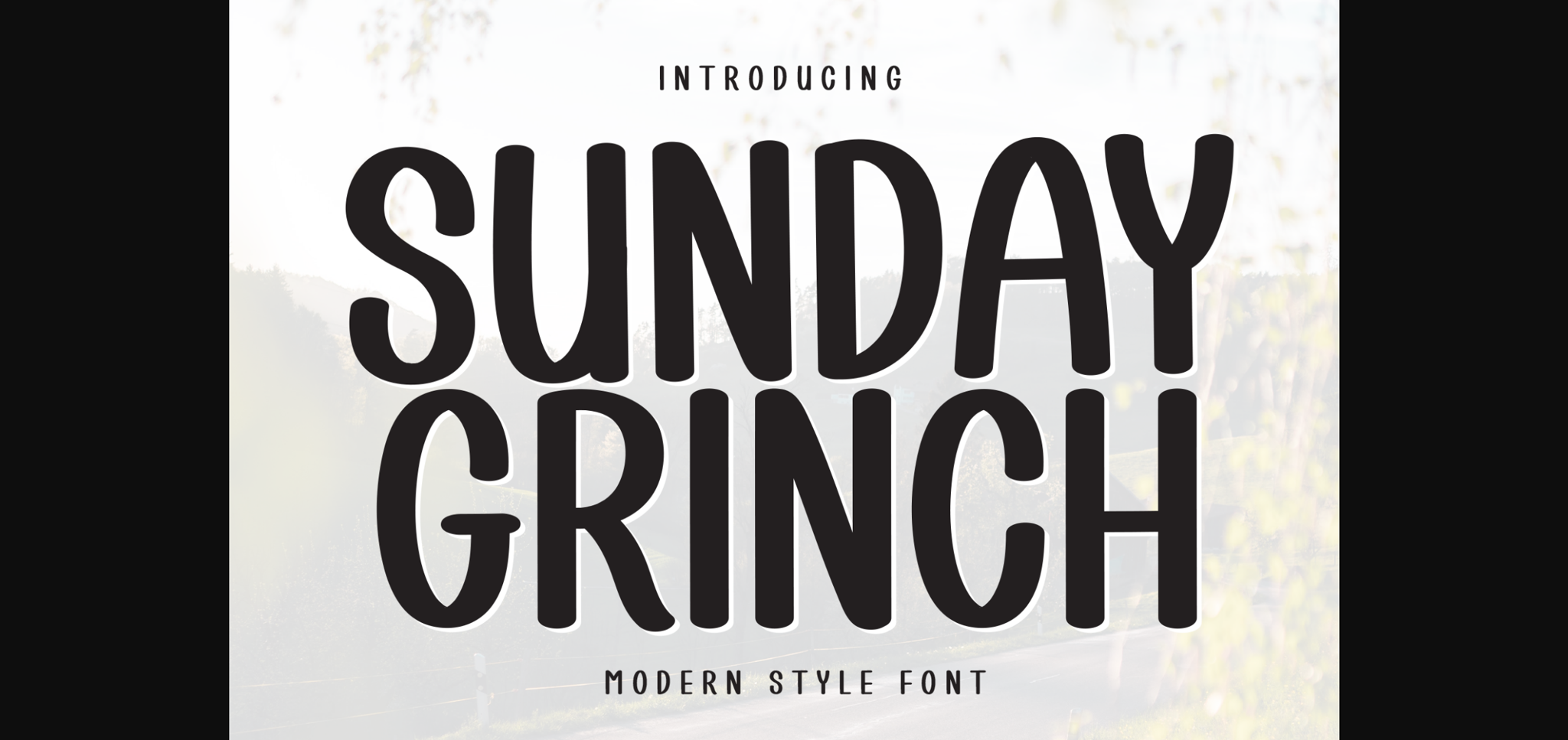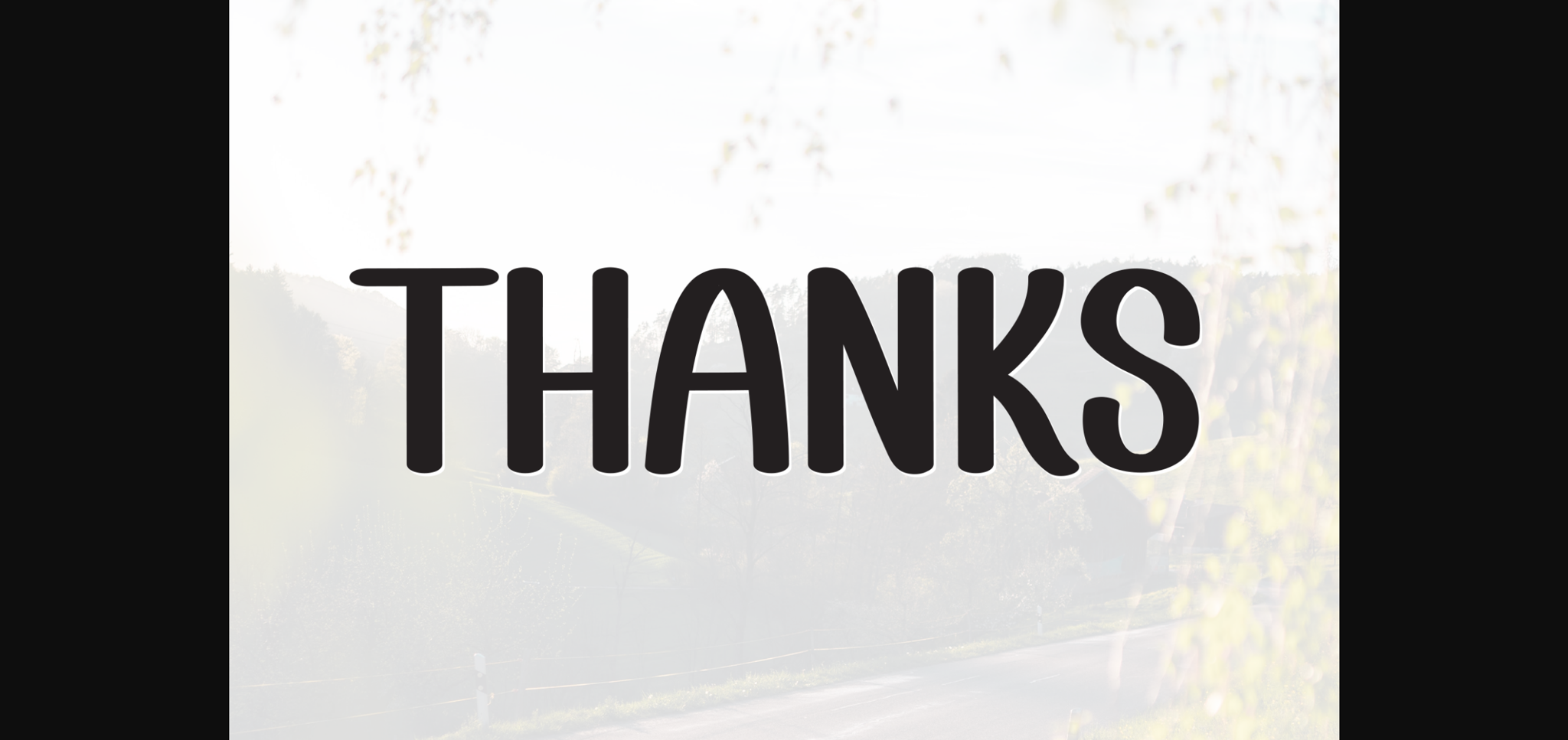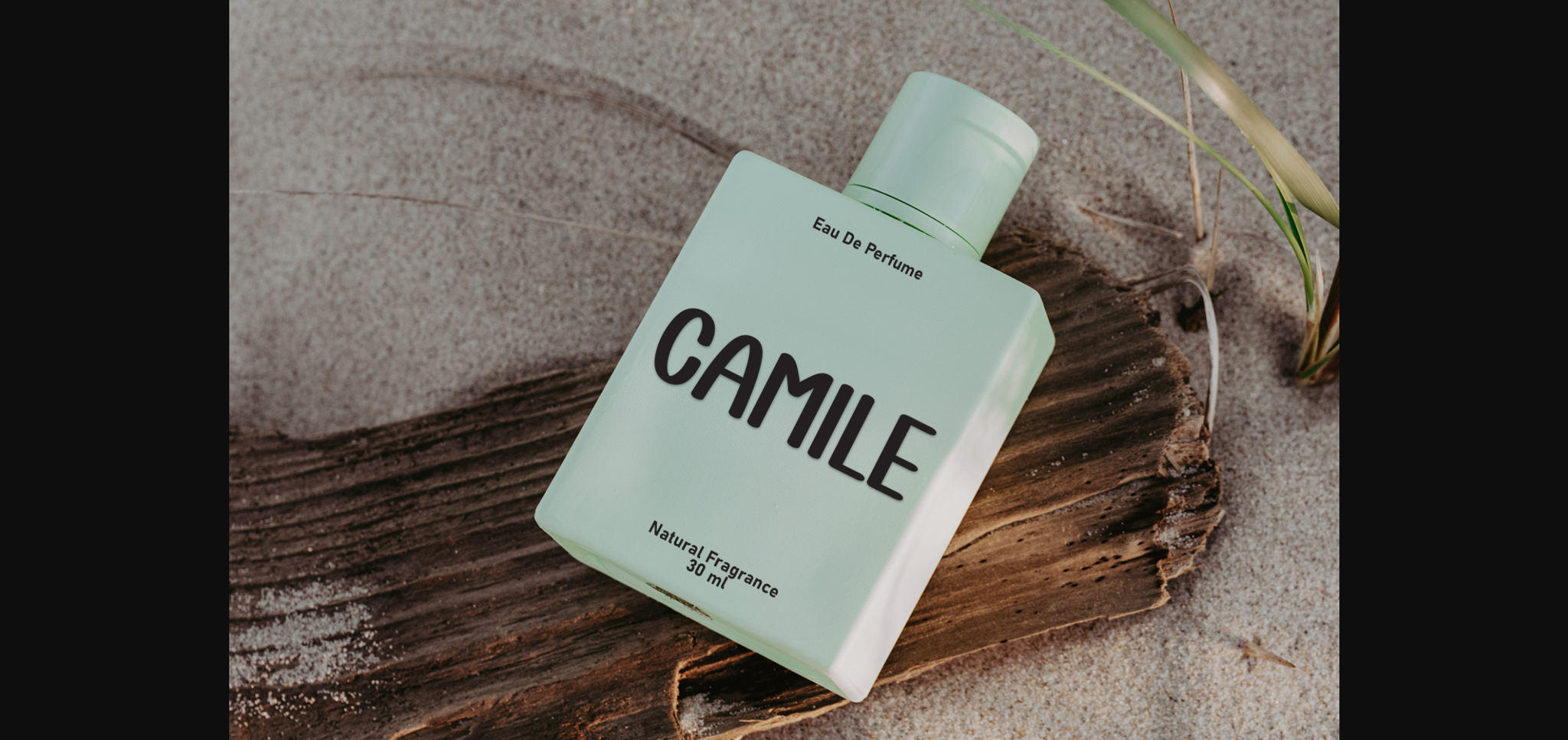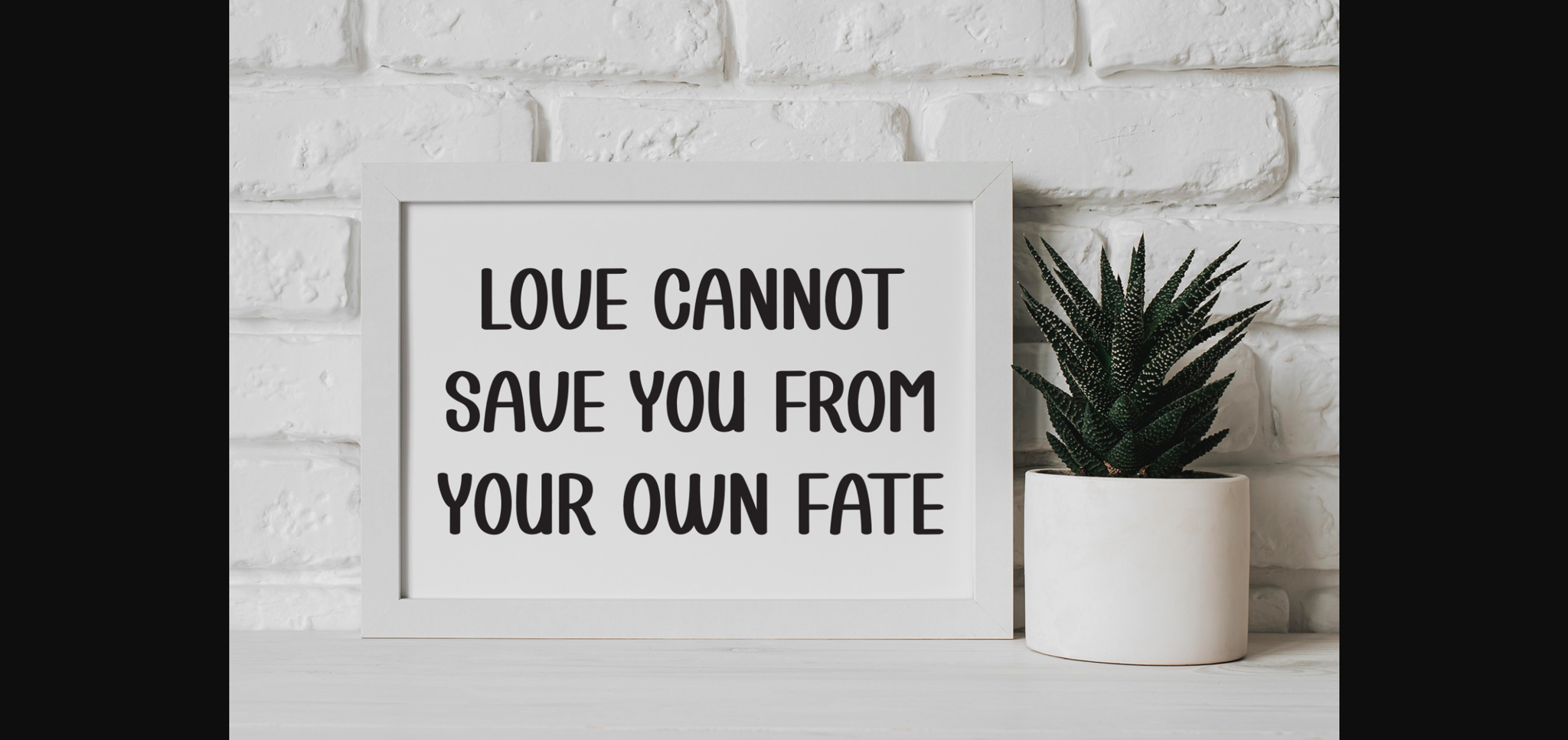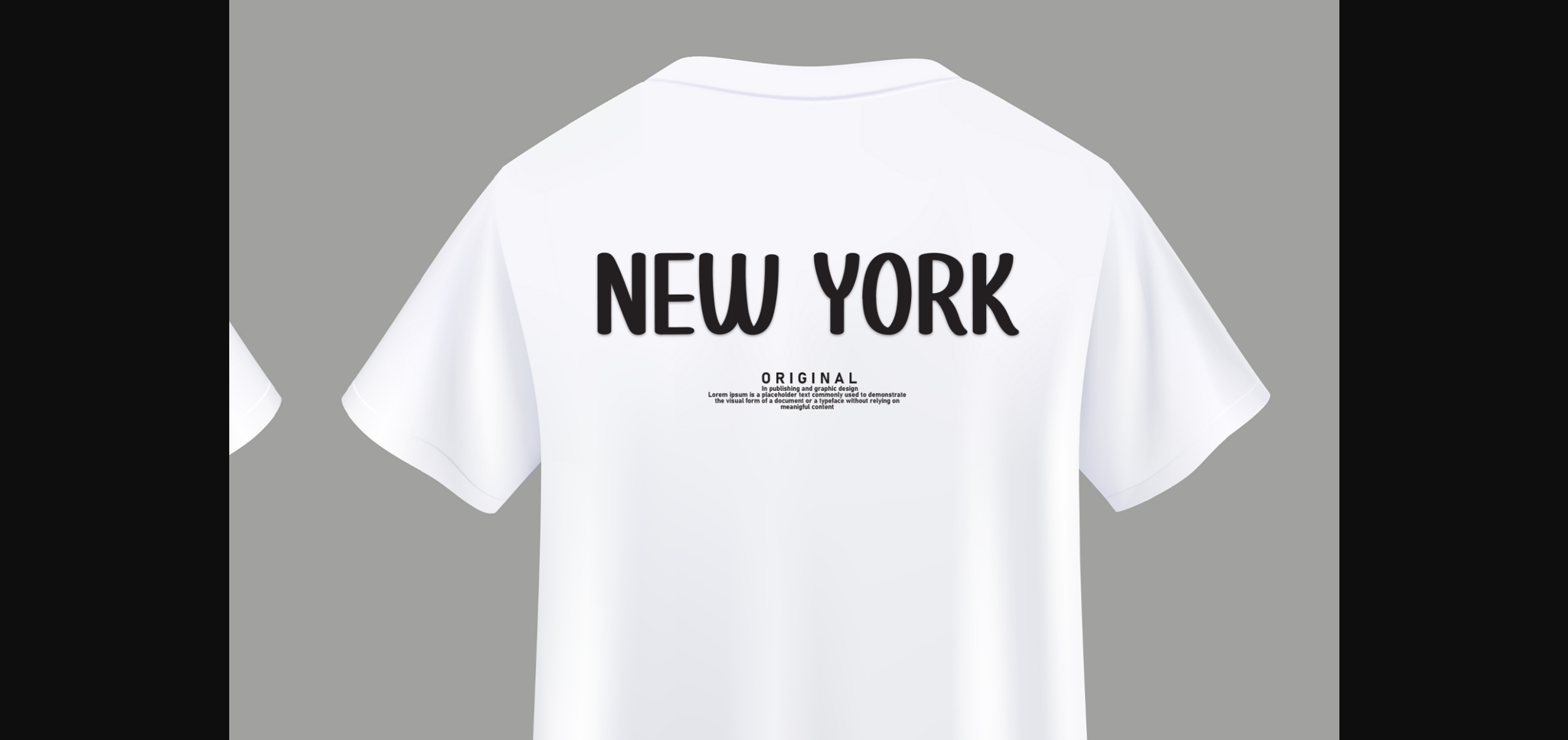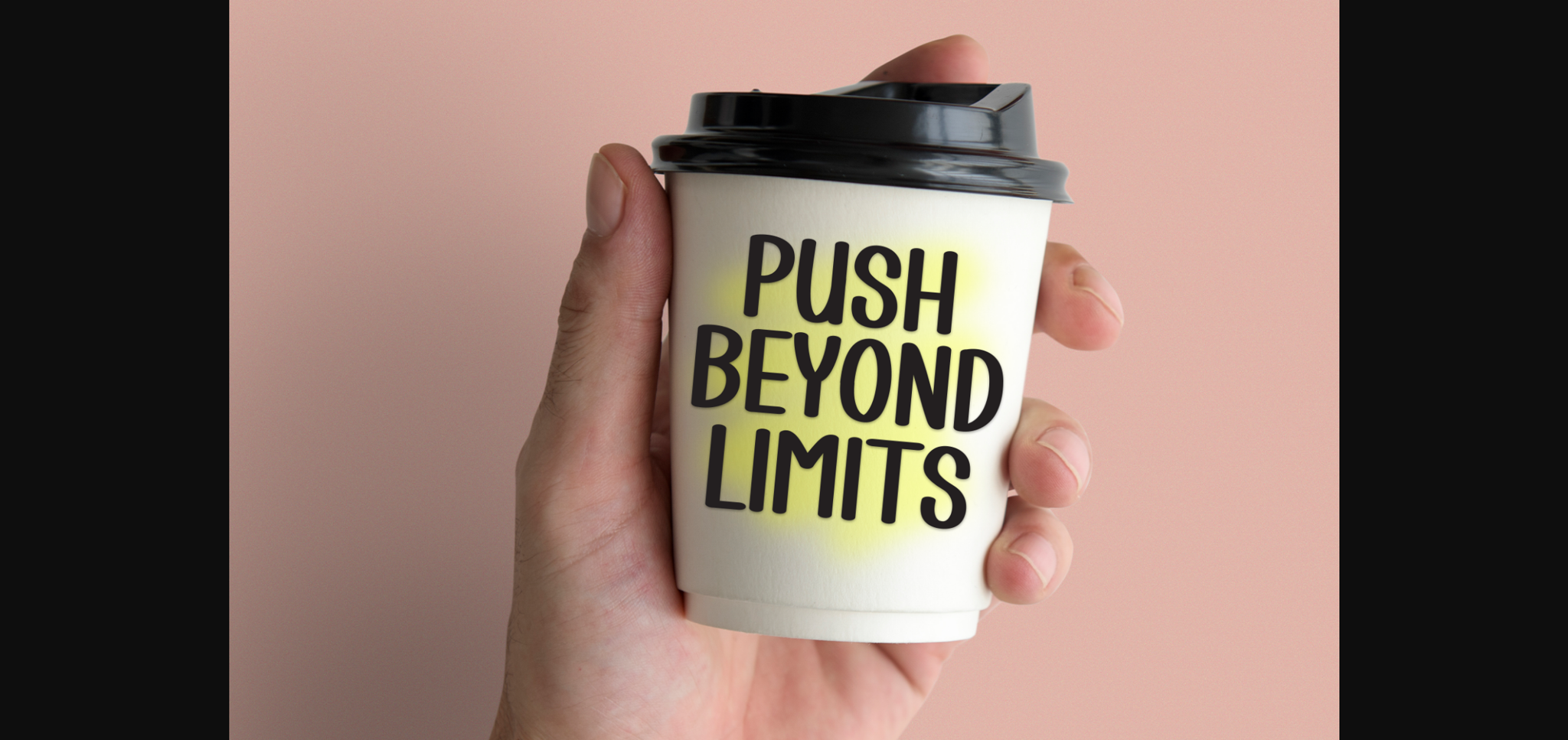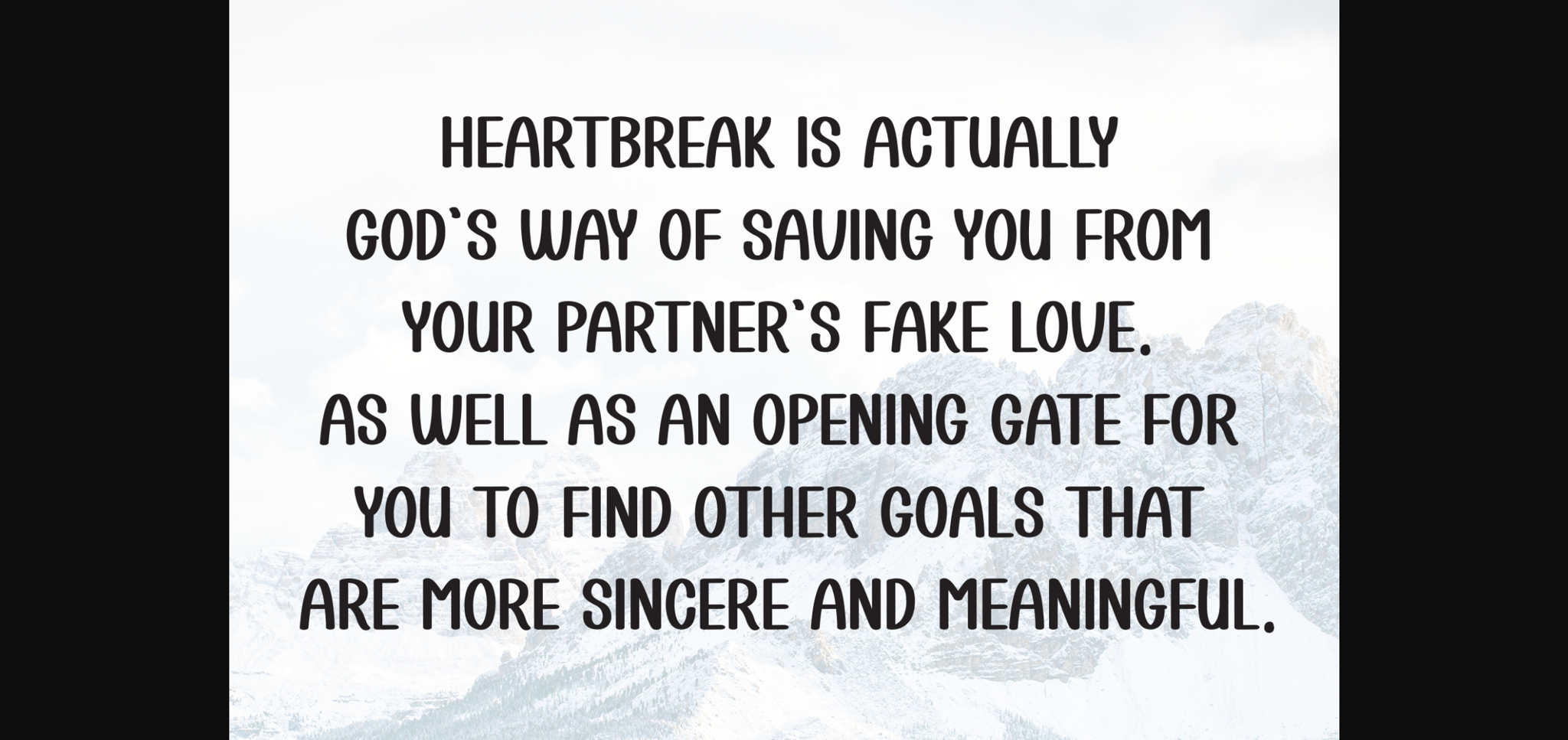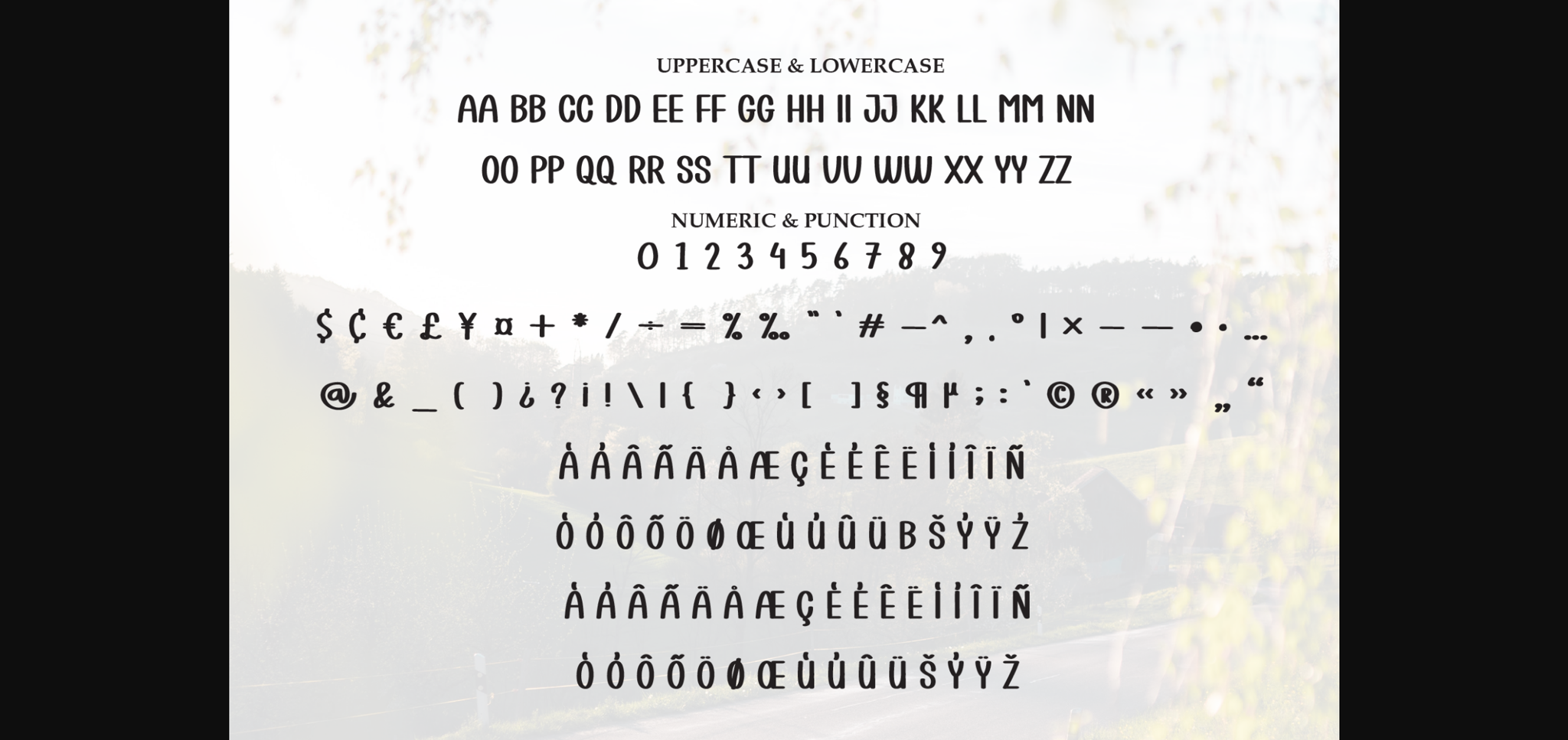
HomeSans Serif FontsSunday Grinch Font Sans Serif Fonts Sunday Grinch Font FacebookXPinterestWhatsApp 1 of 10 ... Sunday Grinch Font Poster 2... Sunday Grinch Font Poster 3... Sunday Grinch Font Poster 4... Sunday Grinch Font Poster 5... Sunday Grinch Font Poster 6... Sunday Grinch Font Poster 7... Sunday Grinch Font Poster 8... Sunday Grinch Font Poster 9... Sunday Grinch Font Poster 10... About Sunday Grinch Font Sunday Grinch is a fun and friendy sans-serif font. Add it to your creative projects and enjoy the results! DOWNLOAD NOW People also explored Ralisto Font Amellia Font Bauman Font White Signature Glassy Anchor Font Seamless Memory Bottle Font Biethany Font Rosemary Font 348 0 TagsSunday Grinch Font Previous articleBaby Chubby FontNext articleUnicorn Font LEAVE A REPLY Cancel reply Comment: Please enter your comment! Name:* Please enter your name here Email:* You have entered an incorrect email address! Please enter your email address here Website: Save my name, email, and website in this browser for the next time I comment. Personal Use Free Jilliant Personal Use Free Read more about this font Mustica Personal Use Free Read more about this font Limejuice Personal Use Free Read more about this font The Quick Personal Use Free Read more about this font BLOG Modern Sans-Serif Fonts That Brands Love in 2025 In 2025, modern sans-serif fonts remain a top choice for brands looking to project clarity, professionalism, and... Fonts That Capture the Spirit of New York City Exploring Font Trends How to Cut Any Font on Cricut: Convert a Font to SVG (Free)